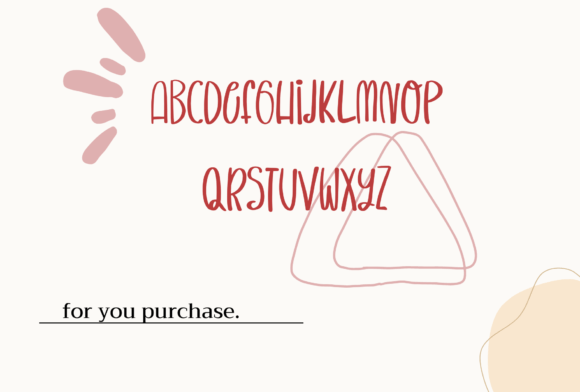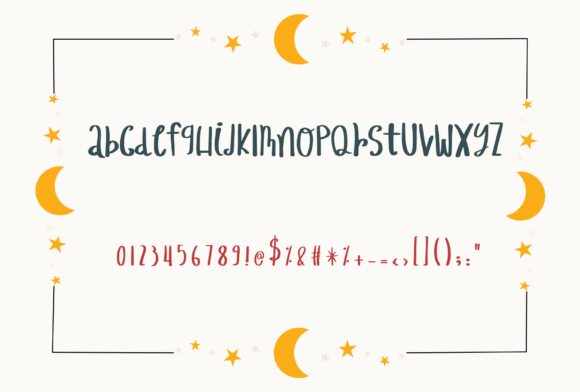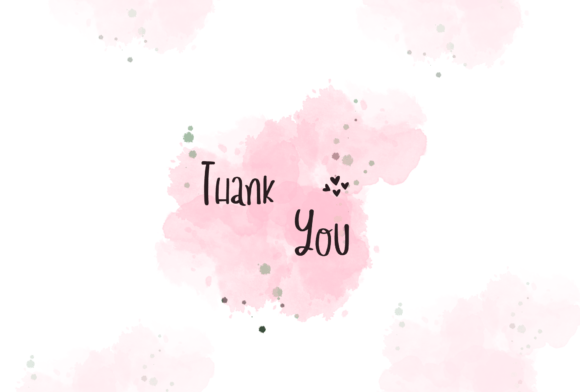
Olivia Font
About Olivia Font
Olivia Font is a cute handwritten typeface that combines quirky charm with a casual flow. With its playful strokes and approachable style, this font adds personality to every project. Because of its versatility, Olivia Font works equally well for personal crafts and professional branding, making it a reliable choice for designers.
A Quirky Handwritten Typeface with Personality
Handwritten fonts bring authenticity to creative work, and Olivia Font enhances that feeling with its unique charm. Its slightly whimsical structure creates a casual look while staying easy to read. Moreover, its balanced strokes allow it to adapt to various design styles. As a result, this font is an excellent option for projects that need friendliness and originality.
Perfect Typeface for Crafts and Greeting Cards
If you enjoy designing greeting cards, invitations, or handmade crafts, Olivia Font is a wonderful tool. For example, it can transform a simple birthday invitation into a fun and memorable design. In addition, it works well for seasonal cards, posters, and thank-you notes. Because of its cute and quirky look, every message feels heartfelt and unique.
A Script Typeface for Logos and Branding
Brands that want to appear approachable and creative can rely on Olivia Font. Logos, packaging, and product labels gain charm when designed with this handwritten script. Furthermore, on social media, it makes posts, banners, and ads stand out with a playful touch. Paired with a clean sans serif typeface, Olivia Font achieves the right balance between fun and professionalism.
Another strength of OliviaFont is its adaptability across print and digital media. In print, it works beautifully for posters, brochures, merchandise, and stationery. Digitally, it enhances websites, presentations, and blog graphics. Since it maintains clarity at all sizes, it remains a dependablefont for both large headlines and small captions.